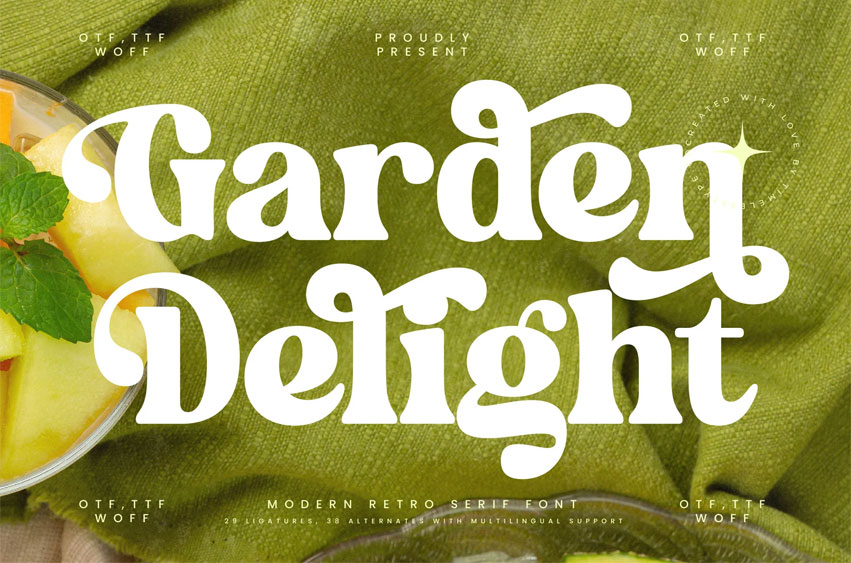
Garden Delight Font
Garden Delight Font is a modern retro serif font with bold curves and soft edges, designed to bring warmth and vintage charm to your creative projects. Featuring 29 ligatures and 38 alternates, this typeface is perfect , posters, branding, invitations, and editorial layouts.
With its nostalgic yet contemporary style, Garden Delight adds a touch of creativity and elegance to both print and digital designs, making every composition feel vibrant .